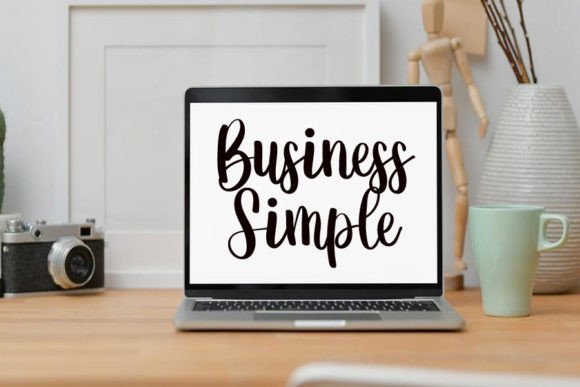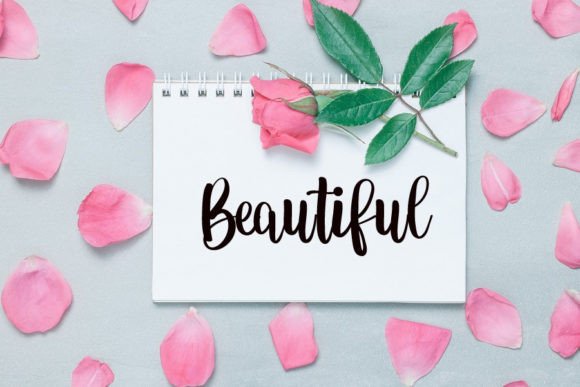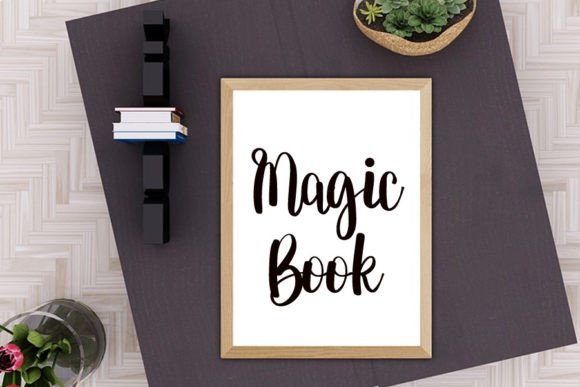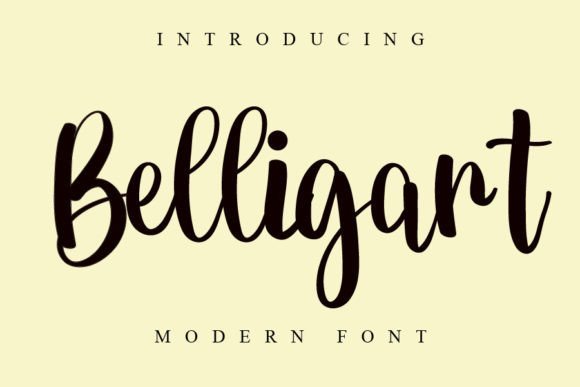
Introduction to Belligart Font
Belligart is a fresh and beautiful font, good for your design purposes such as Youtube banners, Cover Logo Mockups, Wedding Invitations, Id Cards, Flyers, and Crafts.
By using this font, your business will progress and develop Apart from that, this font is simple and unique.
Why Choose Belligart Font?
Belligart Font offers exceptional quality and versatility, making it a valuable addition to your design toolkit. Whether you’re creating for personal projects or commercial use, Belligart Font delivers professional results.